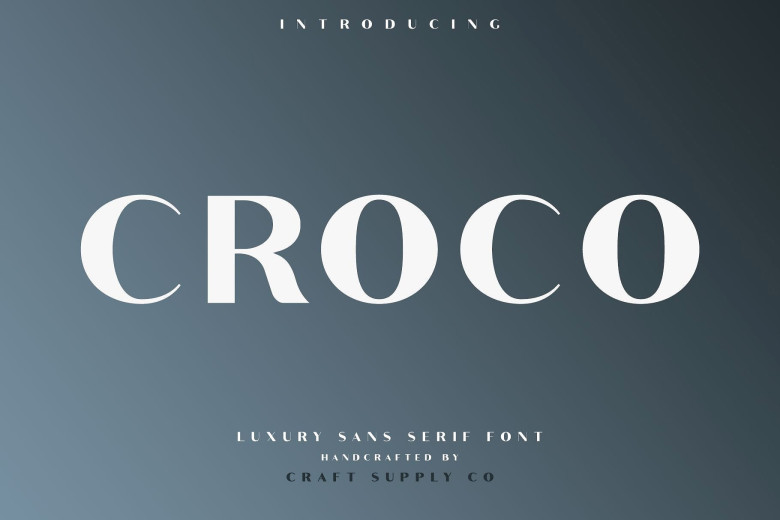
Croco Sans Serif Font
Hello guys. A new modern sans serif font family. Introducing Croco Font. Croco Font Family is a modern serif font family whose design refers us to the style of modern sans serif. The distinctive features of Croco Font Family are the relatively low contrast of strokes, the slightly squarish shapes of round characters and the emphasized business like simplicity.
Croco Font Family has been crafted from scratch with a structural logic of its own: a fusion of pure geometry and optical balance. By combining a variety of styles Croco Font Family is suitable for Logo, greeting cards, quotes, posters, branding, name card, stationary, design title, blog header, art quote, typography.